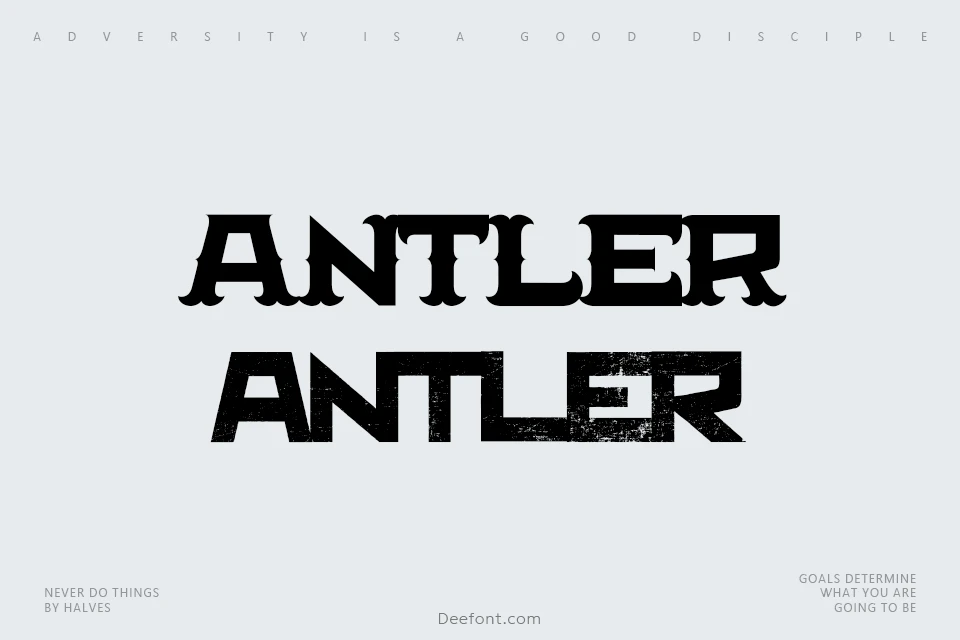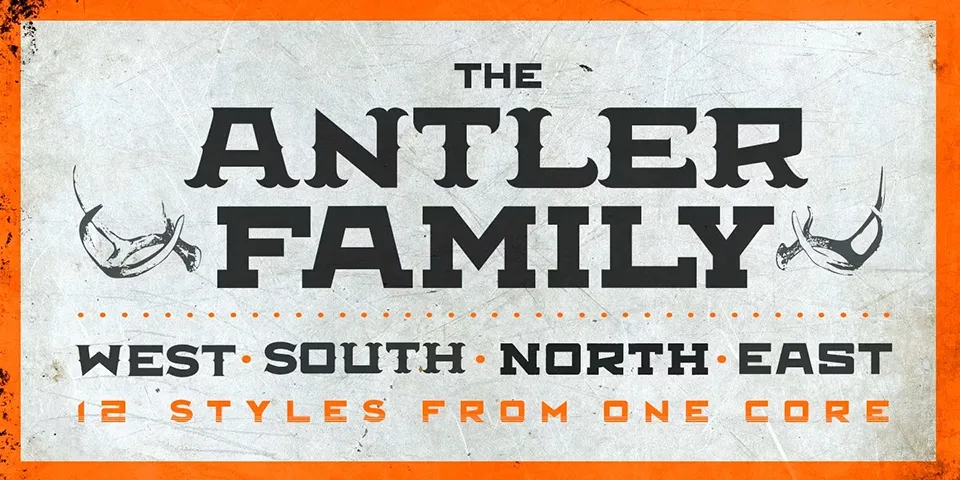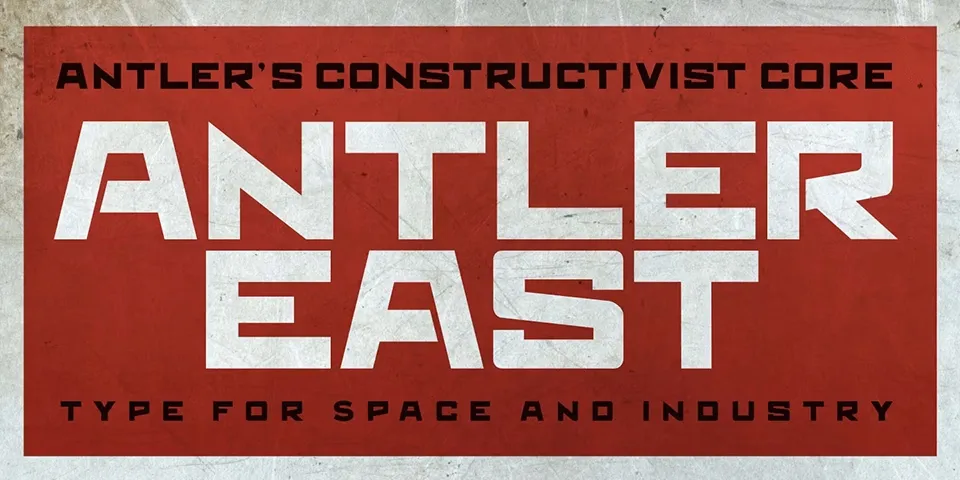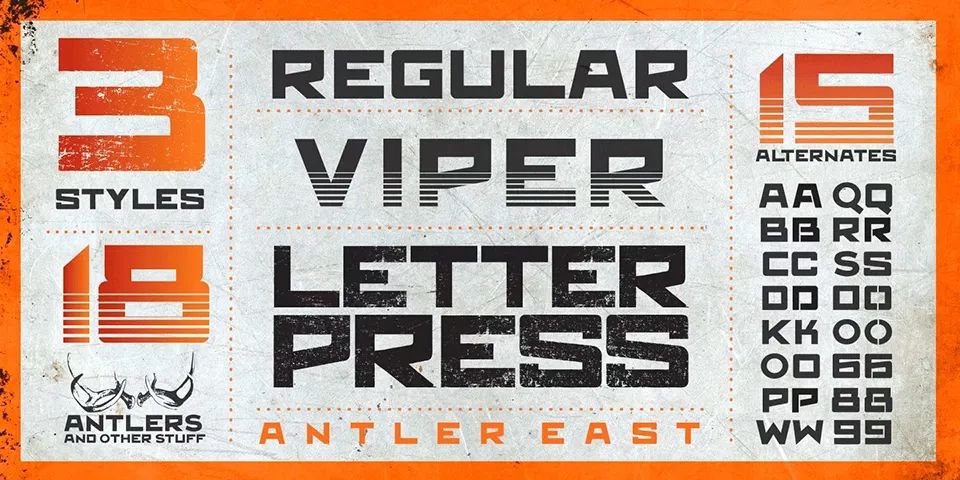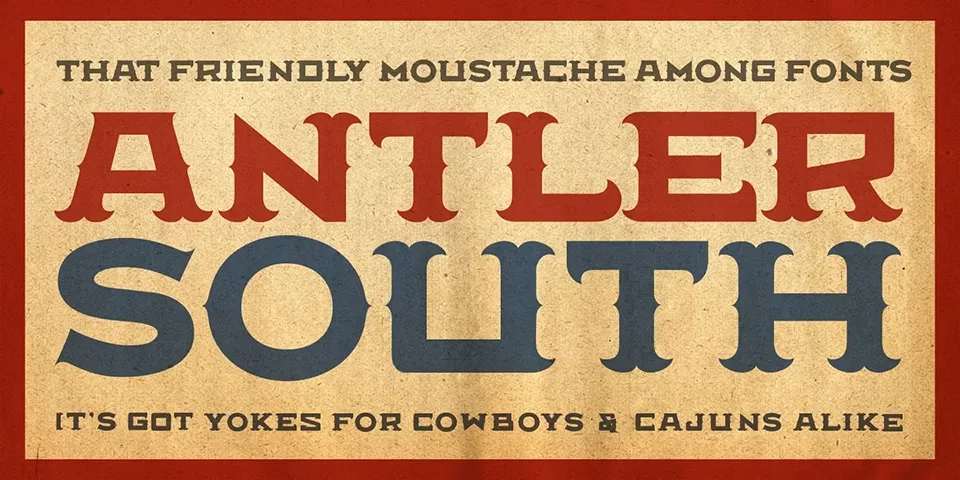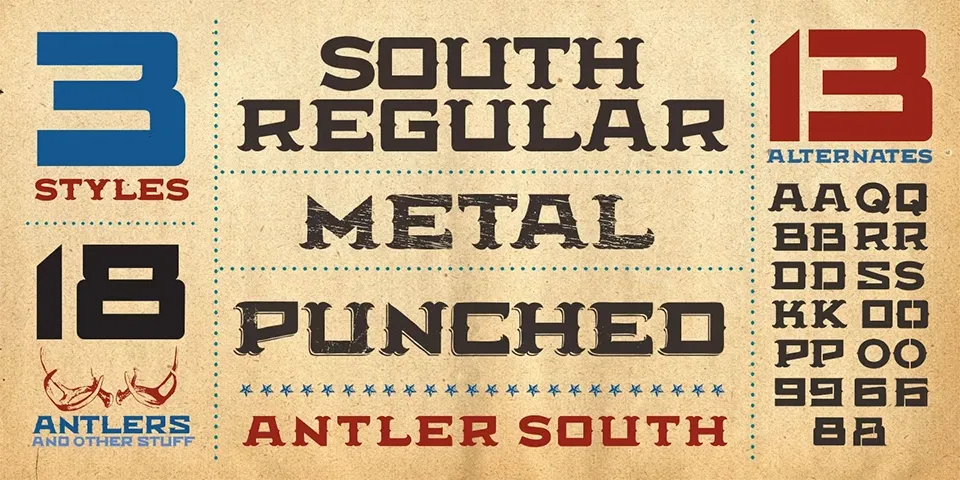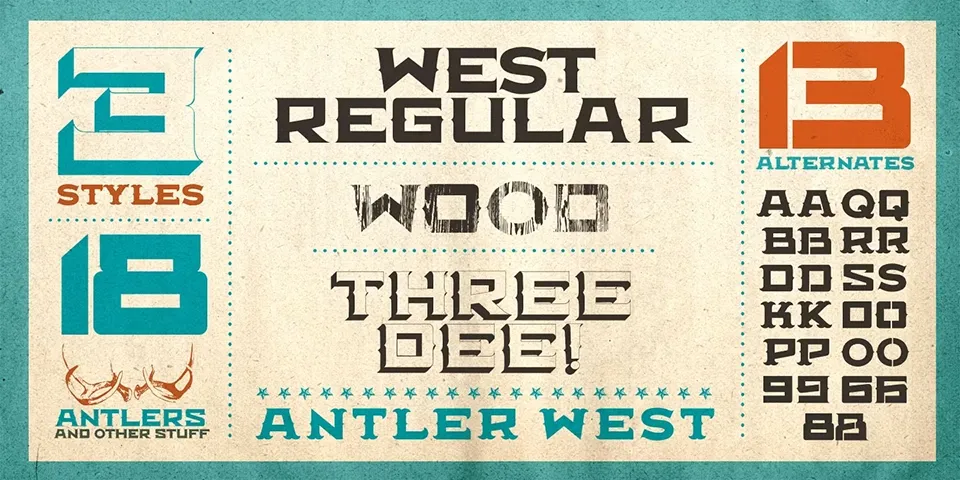
Antler Font Family
Antler Font Family is a robust and versatile display font system designed for impactful visual projects. Featuring four distinct styles and a total of 18 subfamilies, Antler offers a wide range of alternates and creative options, making it ideal for everything from bold headlines to unique branding. Its modern, constructivist core and muscular letterforms provide both strength and flexibility, ensuring your designs stand out across various applications.